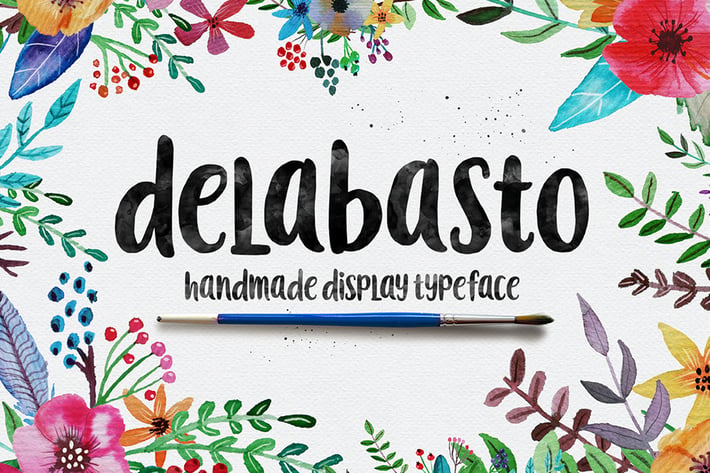
Delabasto Typeface
Delabasto is contemporary brush font, with the look of a stylish face. were painted on paper and carefully made into a font.can be used for stationery, fashion, books, clothing, magazines, cover artwork and marketing. Features 299+ glyphs and 64 alternate characters. including initial and terminal letters,ligatures and multiple language support.